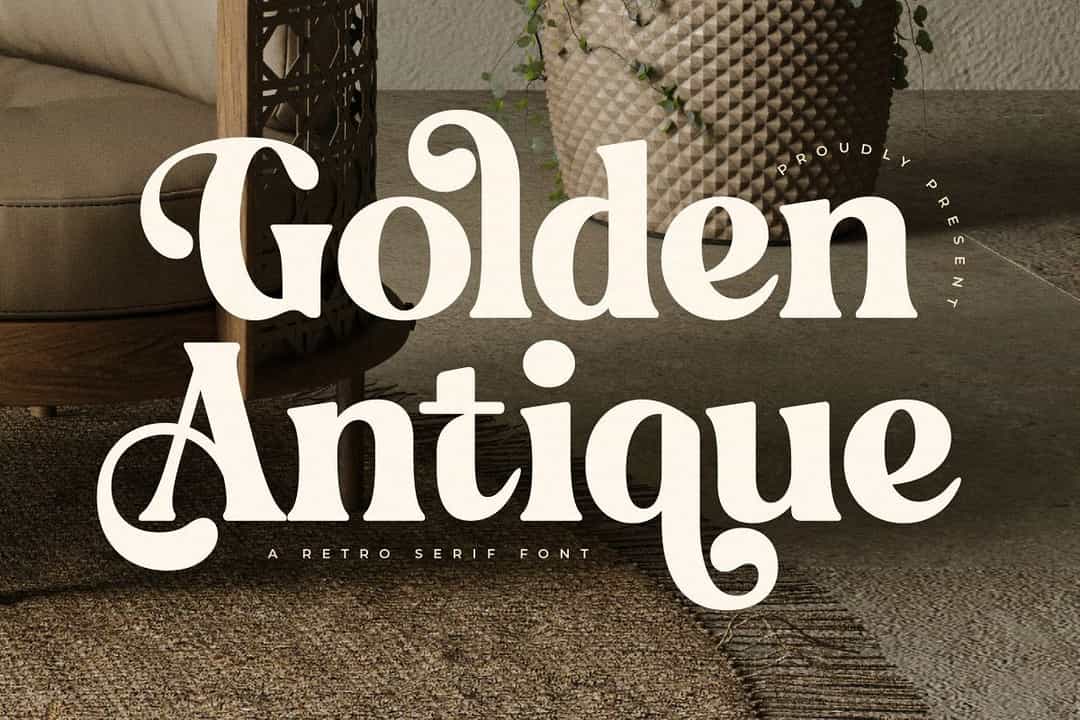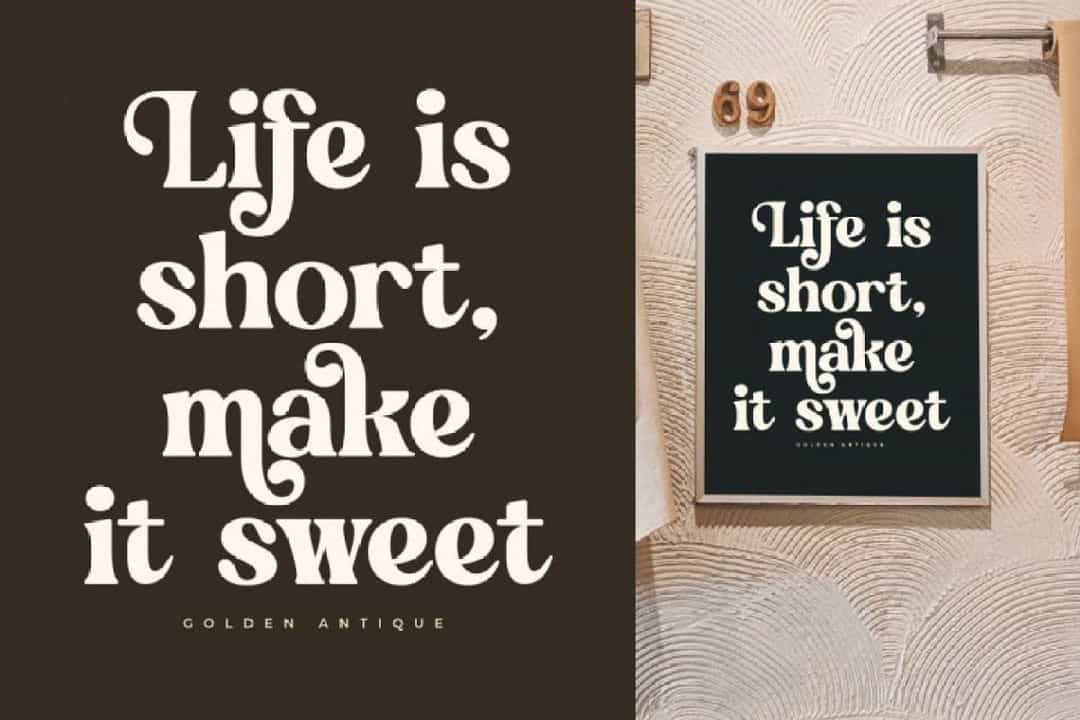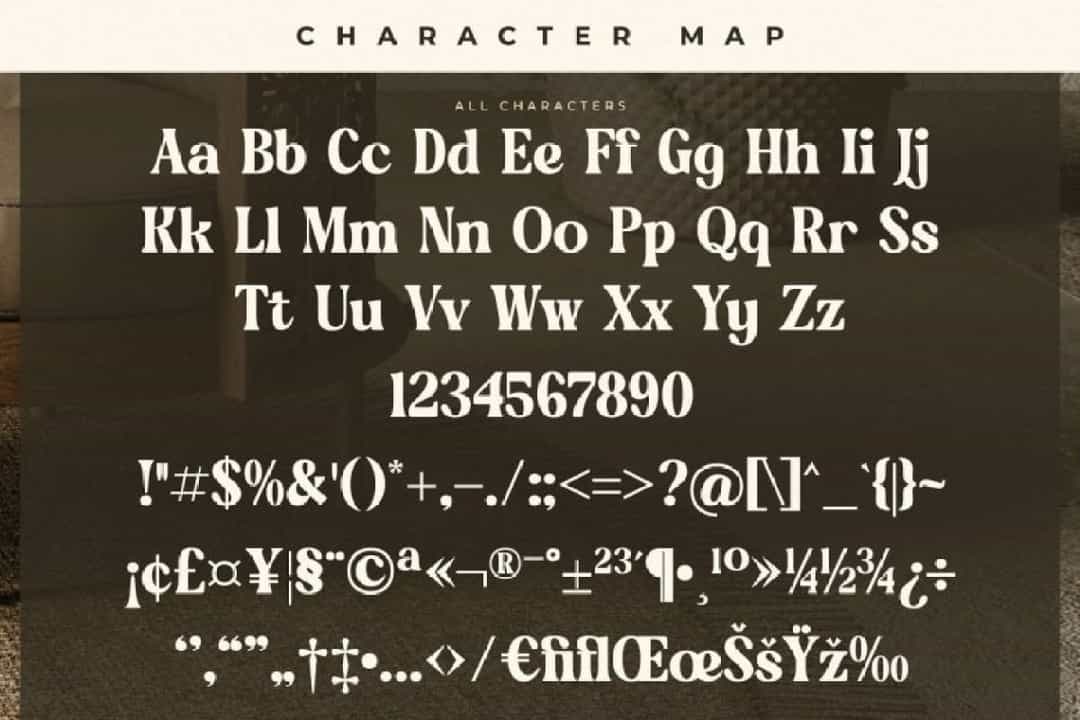
Golden Antique Font From Letterena, is a Luxury Retro Serif font, which is ideal for all kinds of projects like logos, branding ideas design, homeware, packaging for products, mugs posters, quotes and shopping bags, t-shirts and books, name cards greeting cards, invitation cards, labels and watermark, photography special occasions and many other beautiful and luxurious projects that require the Luxury Serif style.